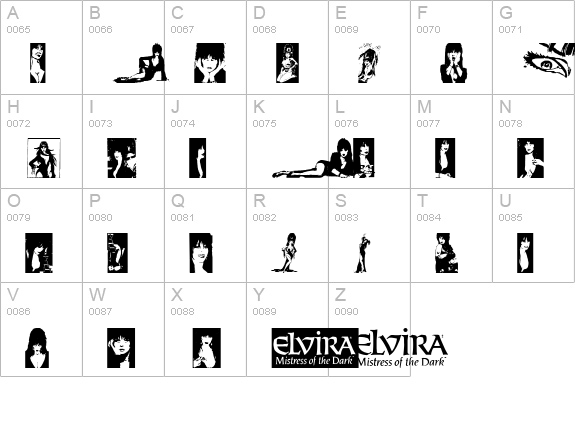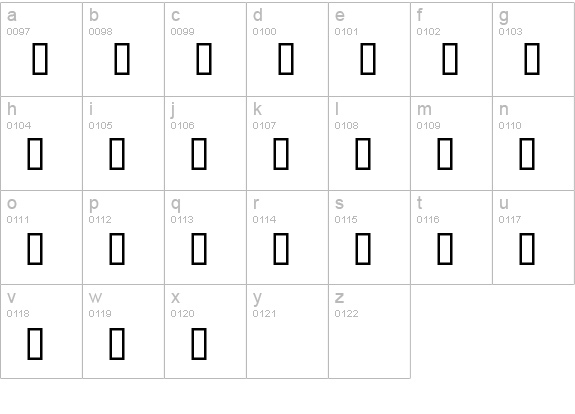
Elvira Dingbats font is a whimsical and playful typeface that adds a touch of fun and creativity to any design project. With its unique characters and intricate designs, Elvira Dingbats is perfect for adding decorative elements and embellishments to your work. This font is a must-have for designers looking to inject some personality and charm into their creations. Whether you're working on invitations, posters, or social media graphics, Elvira Dingbats will help your designs stand out and make a lasting impression. Best of all, Elvira Dingbats is available for free download at FontsMarket.com. Simply visit the website and get instant access to this delightful font to elevate your design projects to the next level. Download Elvira Dingbats today and unleash your creativity with this charming and versatile typeface.